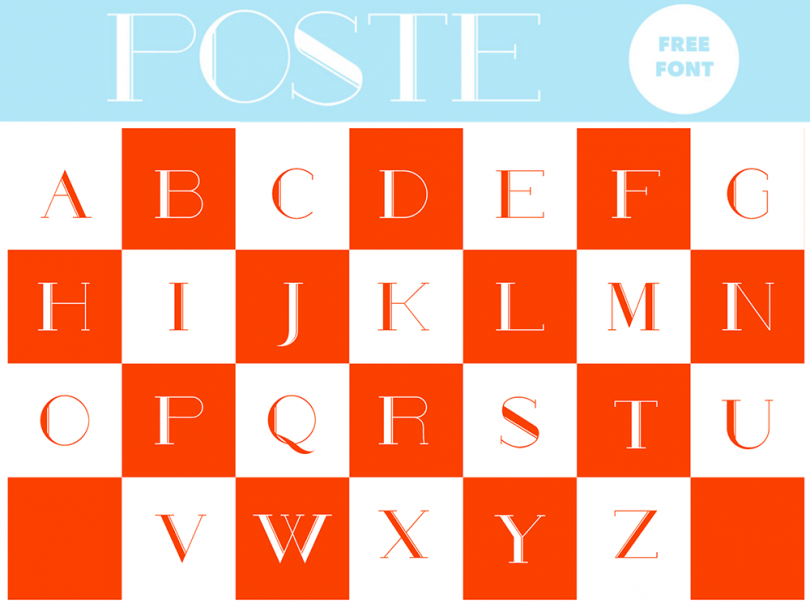
Poste is a free uppercase only font based on wires and electric postes. The Poste font comes in three distinct styles of solid, wired and outwired. This retro free font is most suitable for headlines or titles and can make your brochures, flyers or other graphic design projects look attractive and unique. Grab Poste font now and feel free to use and share it. Also don’t forget to check out our design shop for more great resources. Subscribe to our YouTube Channel to get more amazing stuffs and useful information.